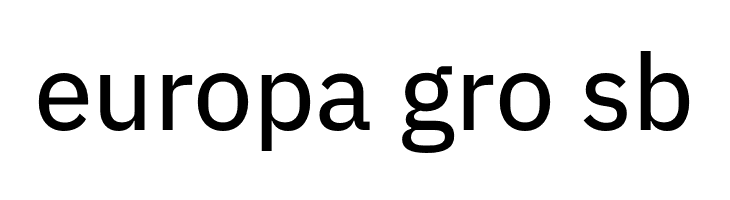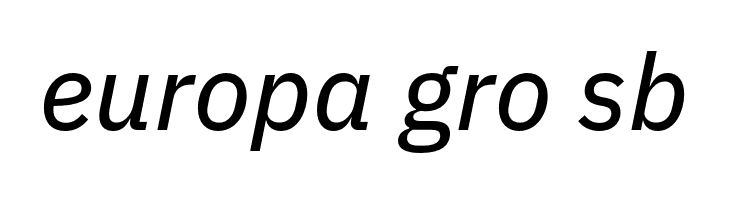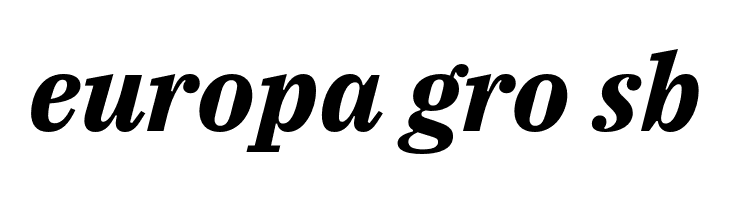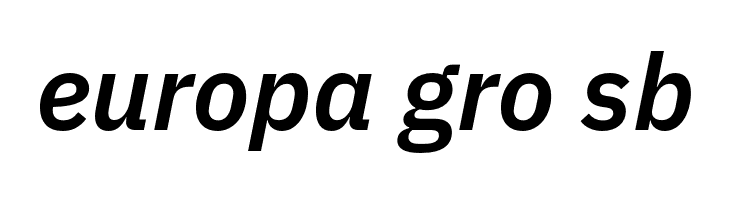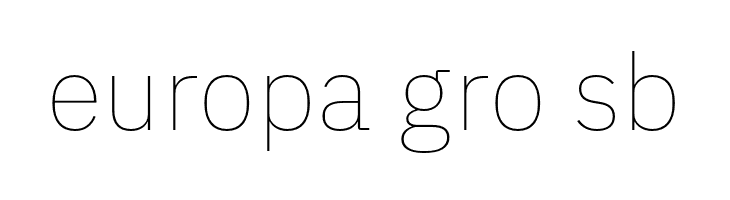
A modern, semi-bold, italic sans-serif font with a clean and geometric design.
A modern, geometric sans-serif font with excellent legibility and versatility.
A modern, italic sans-serif font with clean lines and balanced proportions.
A modern, thin sans-serif font with clean lines and high legibility.
A modern, thin sans-serif font with a clean and minimalist design.
A modern, thin, and italic sans-serif font with sleek lines and elegant style.
A thin, italicized sans-serif font with a modern and elegant style.
A modern serif font with elegant, well-balanced strokes and excellent readability.
A bold, modern serif font with a classic touch, ideal for professional use.
A bold, italic serif font with strong strokes and elegant curves.